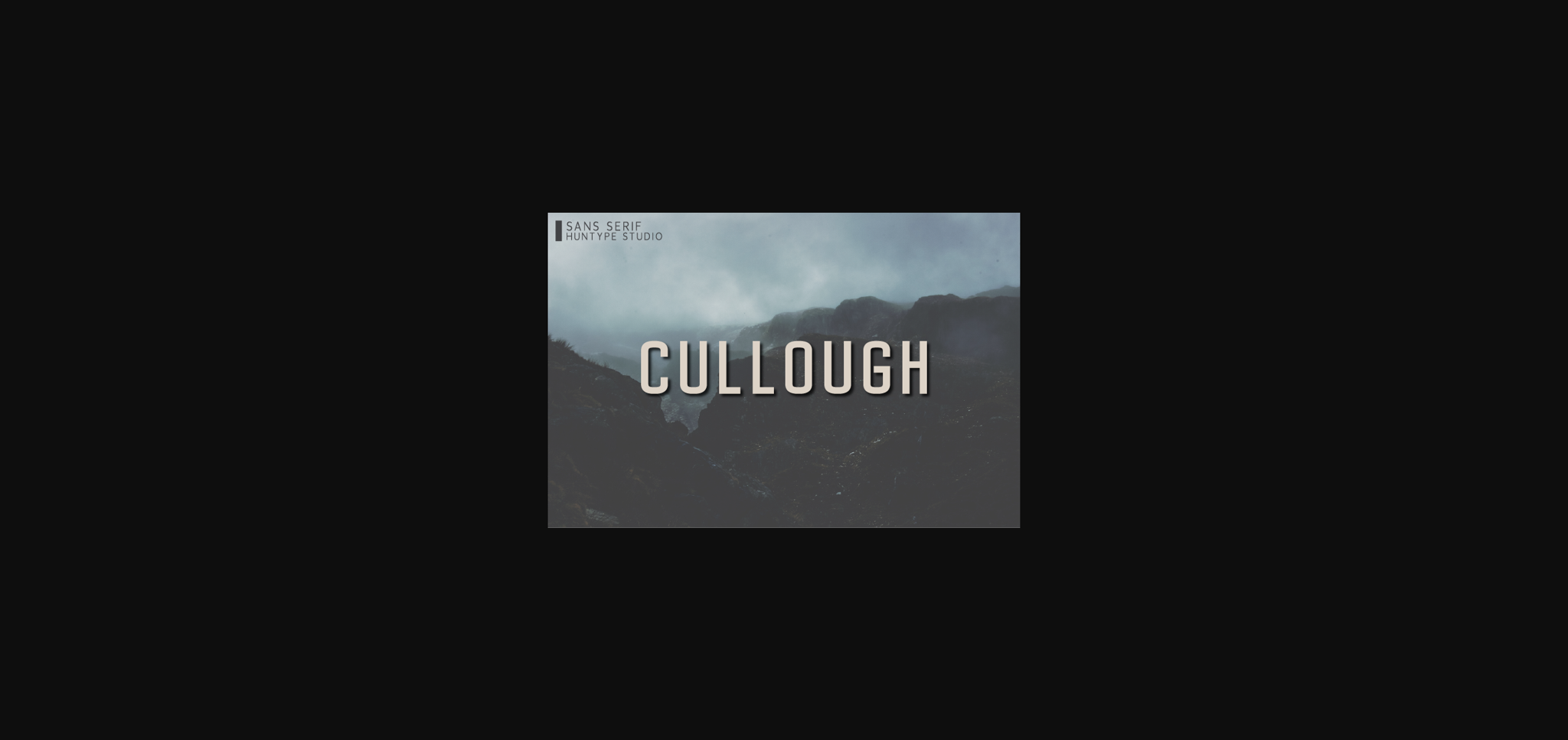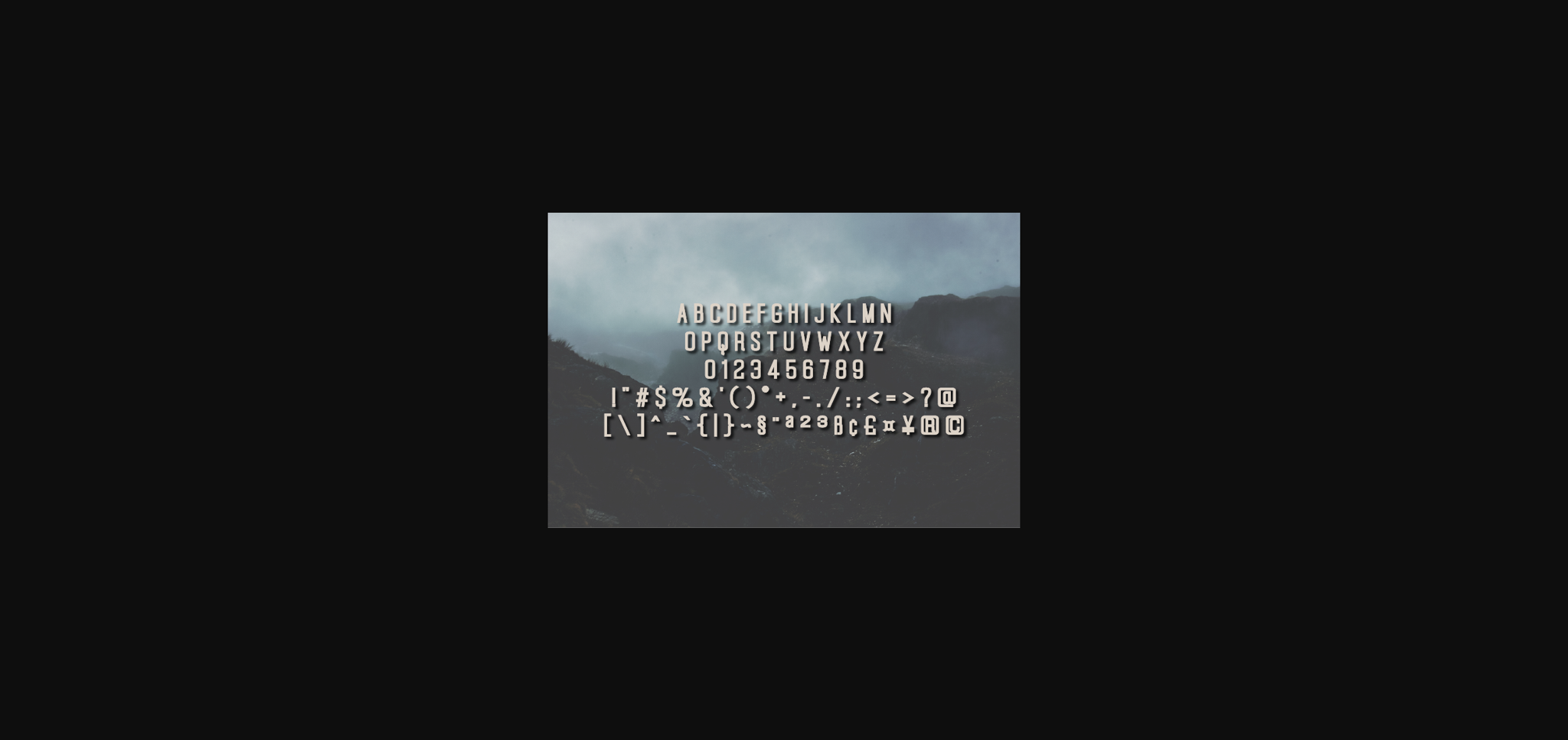
Cullough is a fancy and contemporary sans serif font. With its neat and beautiful arrangement of letters, this typeface will look outstanding in both formal and non-formal designs.